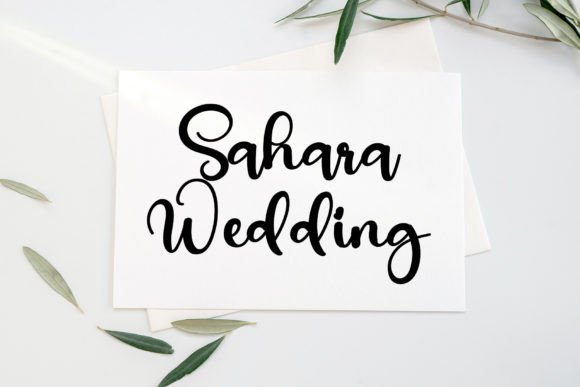
Bumbling Font: Elevate Your Designs with Elegance and Delicacy
In the world of typography, fonts play a crucial role in conveying the tone and personality of a brand or design. Among the numerous font styles available, handwritten typefaces have gained immense popularity for their unique and personal touch. One such exquisite example is the Bumbling Font, an elegant and delicate handwritten typeface that can elevate your designs to new heights.
What is Bumbling Font?
Bumbling Font is a beautiful, handwritten typeface designed to add a touch of sophistication and refinement to your designs. Its elegant and delicate strokes make it perfect for a wide range of applications, from logos and branding to social media posts, advertisements, business cards, wedding invitations, and product design.
Key Features of Bumbling Font
- Elegant and Delicate: Bumbling Font boasts a unique, handwritten style that exudes elegance and delicacy, making it ideal for designs that require a touch of sophistication.
- Versatile: Bumbling Font is suitable for a wide range of design applications, including logos, branding, social media posts, advertisements, business cards, wedding invitations, and product design.
Uses of Bumbling Font
The versatility of Bumbling Font makes it an excellent choice for various design projects. Here are some of the ways you can utilize this beautiful font:
Design Applications
- Logos and Branding: Create a lasting impression with a unique and elegant logo that reflects your brand’s personality.
- Social Media Posts: Add a touch of sophistication to your social media posts and make them stand out from the crowd.
- Advertisements: Use Bumbling Font to create eye-catching advertisements that capture the attention of your target audience.
- Business Cards: Make a great first impression with beautifully designed business cards that feature Bumbling Font.
- Wedding Invitations: Add a touch of elegance and romance to your wedding invitations with this beautiful font.
- Product Design: Use Bumbling Font to create stunning product designs that showcase your brand’s personality and style.
Benefits of Using Bumbling Font
Using Bumbling Font in your designs offers several benefits, including:
Why Choose Bumbling Font?
- Unique and Personal Touch: Bumbling Font adds a unique and personal touch to your designs, setting them apart from others.
- Elegance and Sophistication: This font exudes elegance and sophistication, making it perfect for designs that require a high-end feel.
- Flexibility: Bumbling Font is versatile and can be used for a wide range of design applications.
Tips for Using Bumbling Font Effectively
To get the most out of Bumbling Font, here are some tips to keep in mind:
Best Practices
- Choose the Right Size: Select a font size that is legible and suits your design.
- Pair with Other Fonts: Experiment with pairing Bumbling Font with other fonts to create a unique and visually appealing design.
- Use Colors Wisely: Choose colors that complement the elegance and delicacy of Bumbling Font.
- Experiment with Glyphs and Alternates: Take advantage of the PUA encoding and experiment with different glyphs and alternates to add visual interest to your design.
In conclusion, Bumbling Font is an elegant and delicate handwritten typeface that can elevate your designs to new heights. Its versatility, unique style, and PUA encoding make it an excellent choice for a wide range of design applications. By following the tips outlined above, you can use Bumbling Font effectively and create stunning designs that showcase your brand’s personality and style.